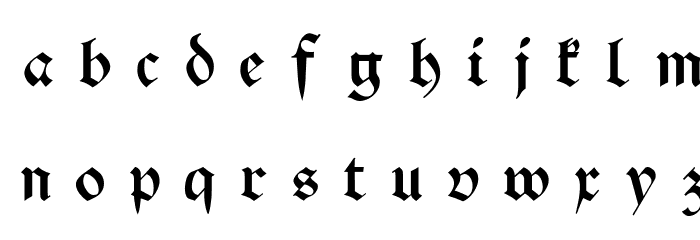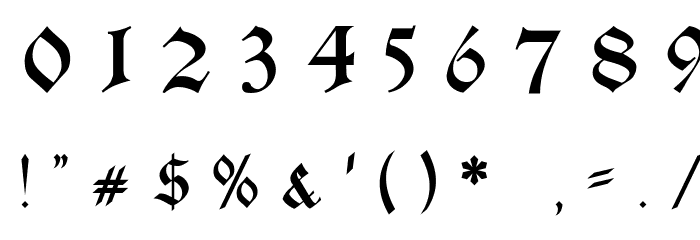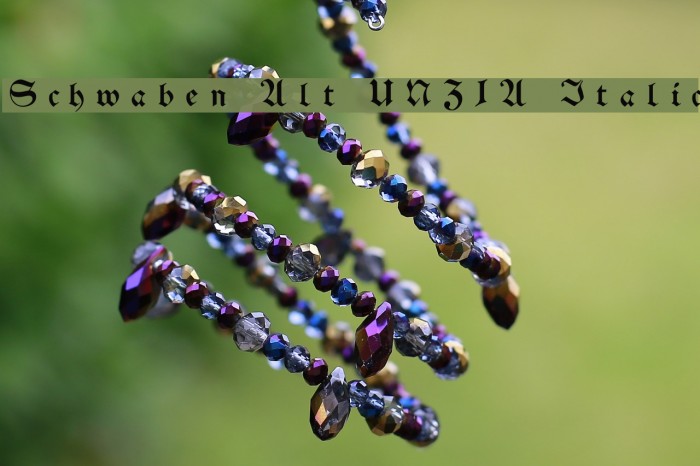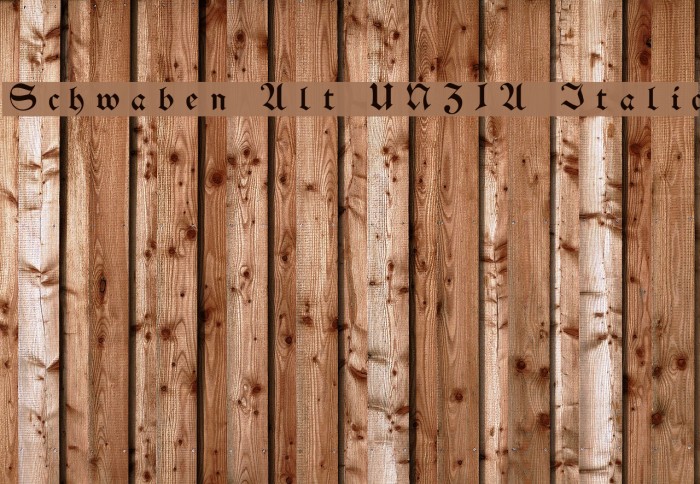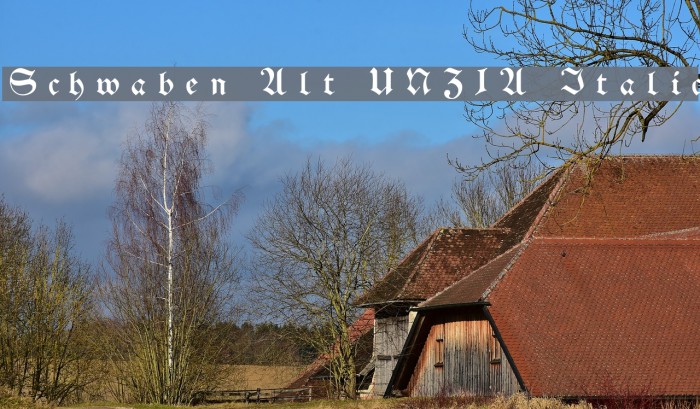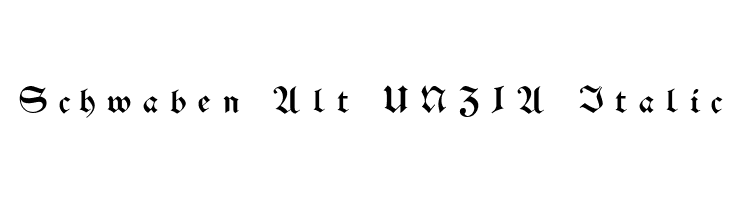
Schwaben Alt UNZ1A Italic Font
This font exudes a classic and historical aura, reminiscent of traditional blackletter styles. The characters are intricately designed with sharp, angular strokes and elaborate curves, giving it a distinct medieval appearance. The uppercase letters are bold and commanding, while the lowercase letters maintain a consistent flow with their ornate detailing. Numbers and special characters follow the same stylistic cues, ensuring uniformity across the typeface. This font is perfect for projects that require a touch of elegance and historical depth, such as invitations, certificates, or branding for luxury products.
A classic blackletter font with intricate, angular strokes and a medieval feel.
- Proposed Projects: Ideal for historical documents, wedding invitations, luxury branding, and decorative signage.
- Category: Blackletter
- Overall Style: Vintage
- Use Case: Headlines, Decorative text, Branding